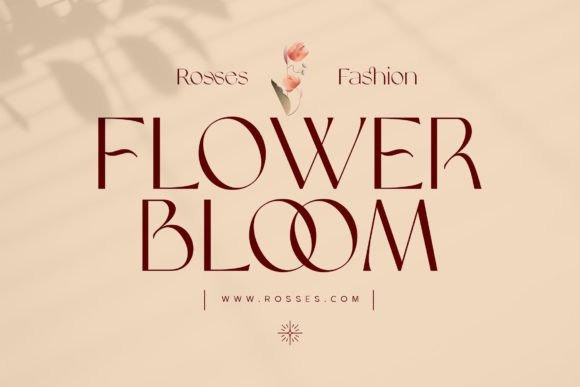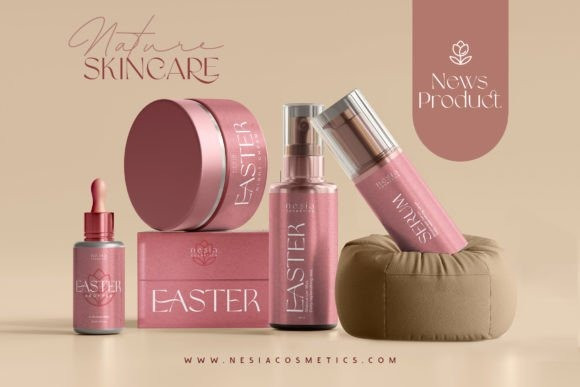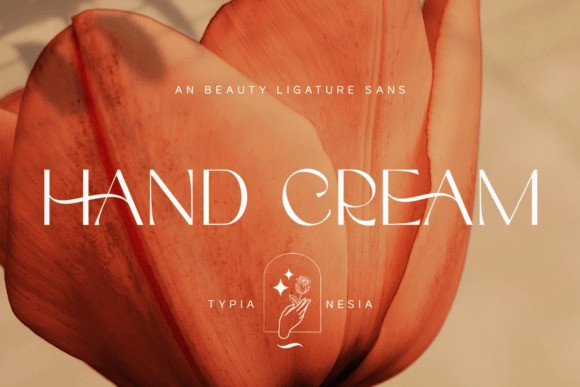
Hand Cream Font
Hand Cream Font – Modern Elegant Aesthetic Sans Serif – Expressive, Romantic, Feminine, Lovely Logo & Branding Font
Hand Cream comes with some alternates and ligatures that you can combine to make a perfect typography design. It is perfect for your upcoming projects such as luxury logo and branding, classy editorial designs, woman’s magazines, cosmetic brands, fashion promotional, art gallery branding, museums, boutique branding, stationery designs, blog designs, modern advertising, card invitations, art quotes, home decor, book/cover titles, special events, and any more.